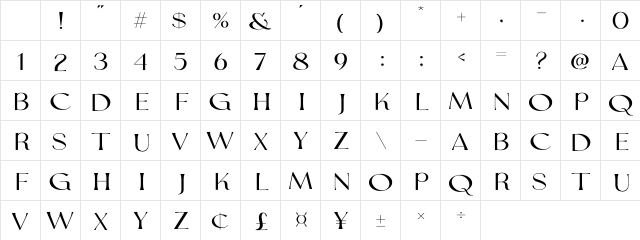
Complete Valen Valentine Serif Regular glyph index. Displaying only characters natively supported by Valen Valentine Serif Regular font.
Valen Valentine Serif carries the refined structure of traditional serif typography, with bracketed terminals and considered proportions that communicate credibility and craft.
Pro Tip: Use Valen Valentine Serif for editorial body copy and considered headline work. Pair with a neutral sans for UI elements or captions to create a classic hierarchy.